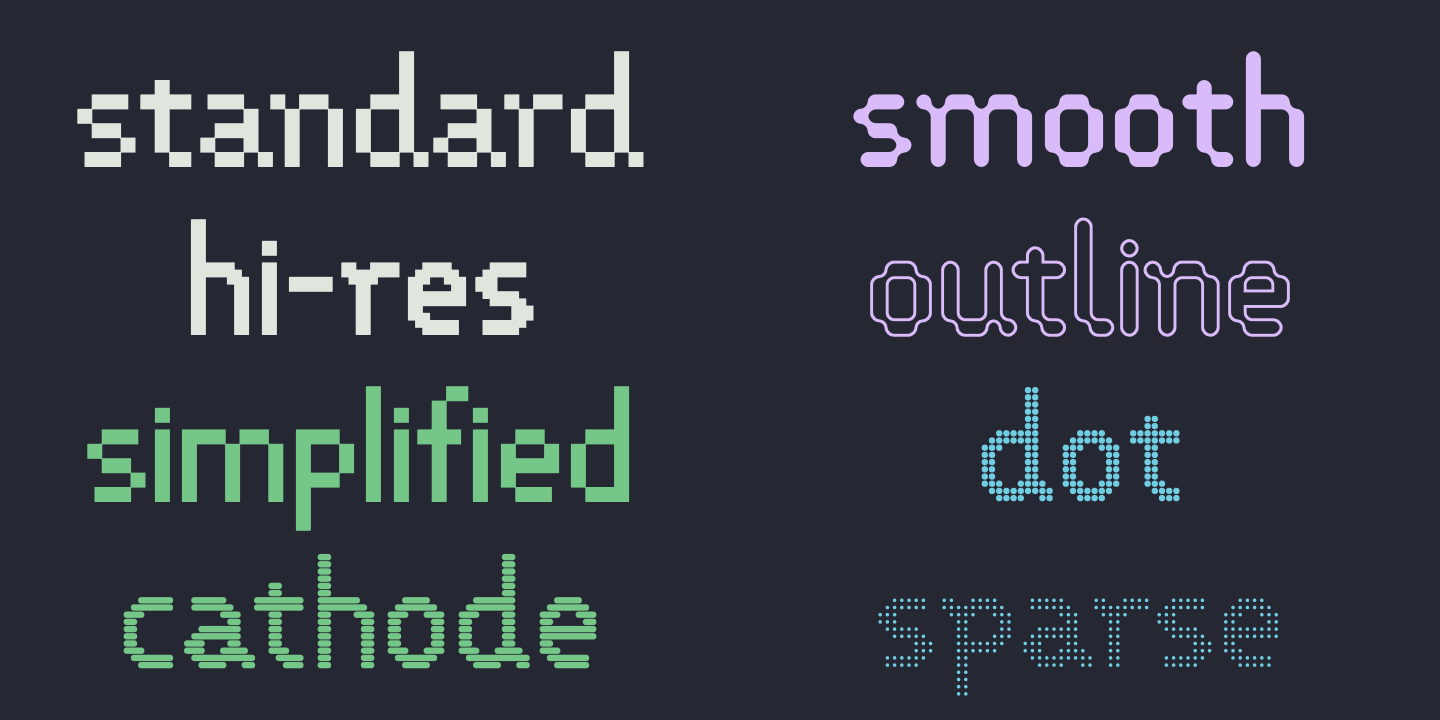
VP Pixel Font Free Download is a bold, retro-inspired pixel typeface designed to evoke nostalgia and digital charm. Featuring sharp, blocky letterforms and a classic 8-bit aesthetic, VP Pixel Font is perfect for video game titles, pixel art posters, retro branding, event flyers, app interfaces, and social media graphics. Its pixelated style makes it ideal for projects that aim to capture the fun and simplicity of vintage gaming culture.
Whether you're crafting game-inspired logos, creative event materials, or eye-catching digital artwork, VP Pixel Font delivers a pixel-perfect vibe that stands out across both print and digital platforms. Its bold, geometric style makes every word pop with retro flair.